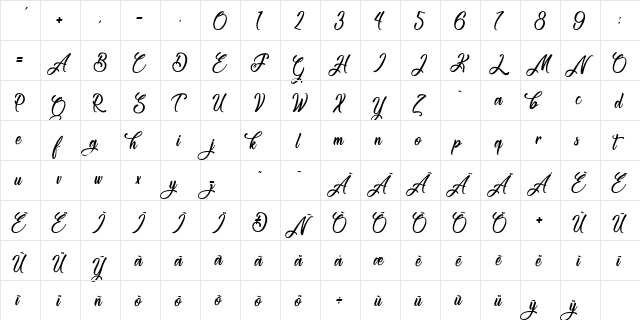
Congratulation Folding Regular
| Foundry | Octotype |
| Designer | Octotype |
Design Context for Congratulation Folding Typeface
Congratulation Folding is a composed and adaptable typeface that performs quietly and consistently across a wide range of design contexts.